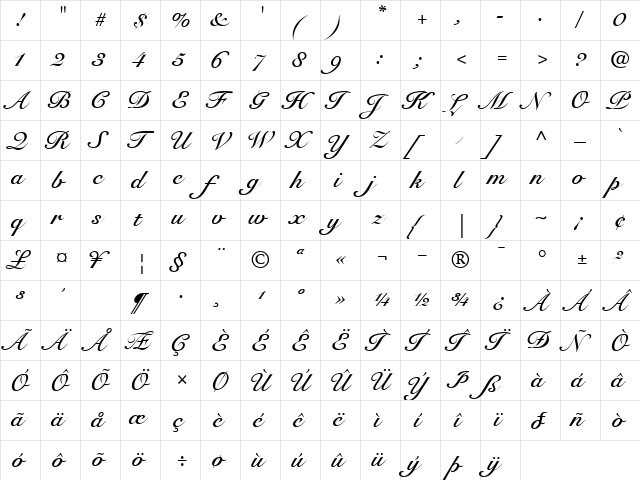
SnellRoundhand BoldScript
SnellRoundhand flows with the natural rhythm of handwritten lettering, making it ideal for designs that call for warmth and personal expression. Its bold stroke weight gives it real presence on the page.
Font Pairing: Combine SnellRoundhand with a simple geometric sans for maximum contrast — the tension between flowing curves and clean structure is a classic typographic pairing.
Pro Tip: Pair SnellRoundhand with a clean sans-serif for supporting text. The contrast between fluid script and geometric structure creates an elegant typographic hierarchy.